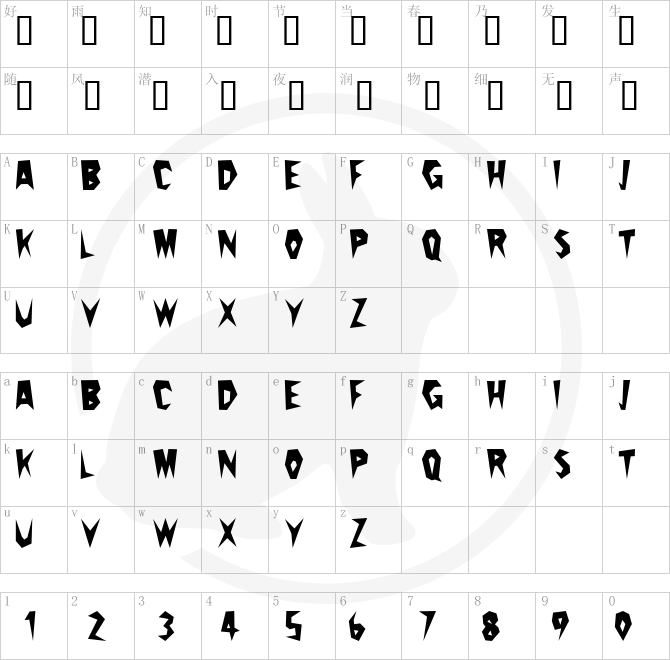
• Font Name:Cactus Pete
Cactus-Pete-copy-1-.ttf is a very beautiful artistic font, Cactus-Pete-copy-1-.ttf is widely used in the design and printing of various books and pictures,Cactus-Pete-copy-1-.ttf has a strong visual impact,Cactus-Pete-copy-1-.ttf is a commonly used font in newspapers, magazines and books, and is used in posters, e-commerce Poster design, store design, logo design, font design and other fields.Cactus-Pete-copy-1-.